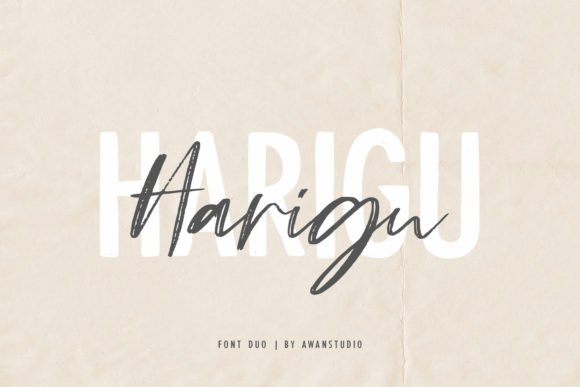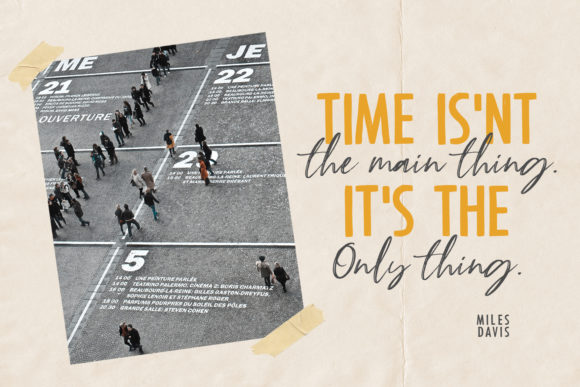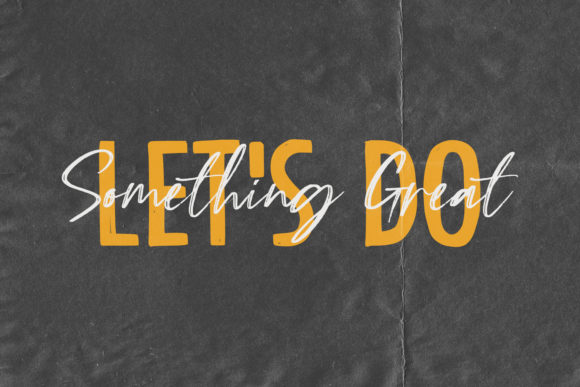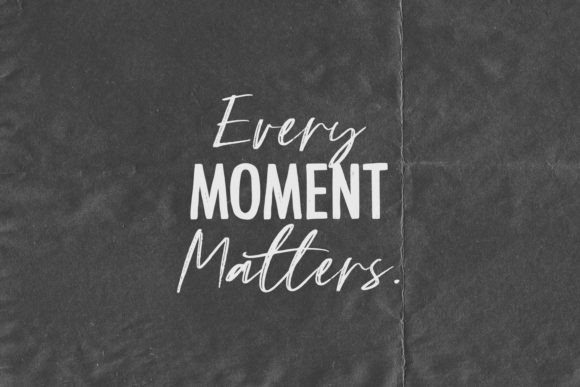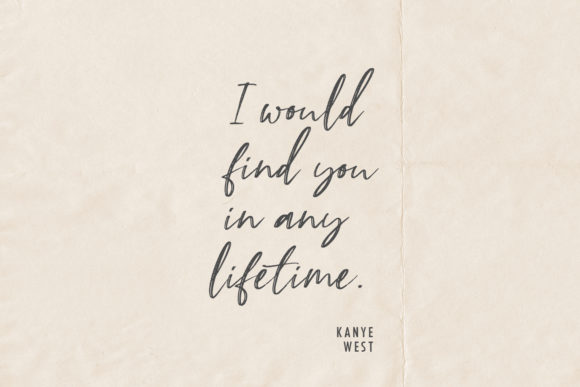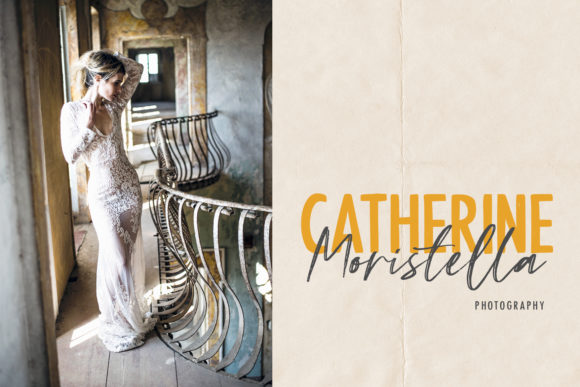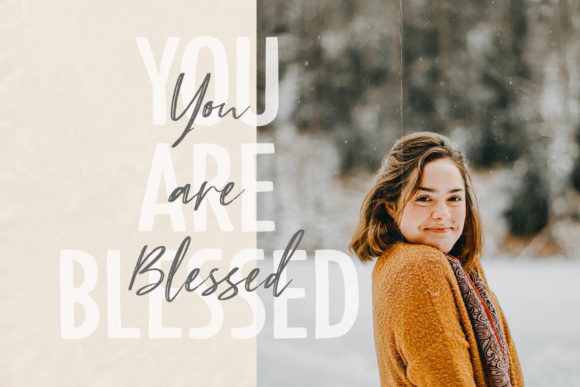
Unlock the Power of Unique Design with Harigu Duo Font
Have you ever stared at a blank canvas, eager to bring a fresh idea to life, only to be overwhelmed by the endless possibilities? That’s exactly what happened to me the last time I embarked on a design project. I needed a font that could capture the essence of my concept, something that would make it stand out from the crowd. Little did I know, my search would lead me to the stunning Harigu Duo Font.
This incredible font duo consists of a smart sans serif and an authentic script font, designed to work harmoniously together. The Harigu Duo Font is perfect for designers who crave a unique look and feel for their projects. By combining these two fonts, you can create one-of-a-kind designs that truly reflect your artistic vision.
Whether you’re a seasoned designer or just starting out, the Harigu Duo Font is an invaluable addition to your toolkit. Its versatility and expressive nature make it an ideal choice for a wide range of projects, from branding and advertising to editorial and digital design.
Key Features of Harigu Duo Font
- Font Family: Harigu Duo is a unique, dual-axis font that combines two distinct font styles in a single font family.
- Unique Characteristics: Harigu Duo features a distinctive, dual-axis design that allows for a wide range of creative applications, from body text to display headings.
Review of Harigu Duo Font
Overall, I found the Harigu Duo Font to be an interesting addition to the world of typography. Here are some of its strengths and weaknesses:
- Unique style and aesthetic: Harigu Duo Font has a distinctive, modern look that sets it apart from other fonts.
- High legibility: The font is clear and easy to read, even at smaller font sizes.
- Good for display text: Harigu Duo Font is well-suited for headings, titles, and other display text where a bold, eye-catching font is desired.
- Limited font families: The Harigu Duo Font is only available in two weights (Regular and Bold), which may limit its versatility.
- No italic or oblique options: If you need to use italic or oblique text, you may need to use a different font.
- Not suitable for body text: While the font is legible, it may be too bold and attention-grabbing for body text, which can make it difficult to read in large quantities.
The Harigu Duo Font is a solid choice for designers who want to add a modern, unique touch to their projects. While it may have some limitations, its strengths make it a valuable addition to any font collection.
The Harigu Duo Font is ideal for:
1. Creating elegant and sophisticated designs.
2. Adding a touch of luxury and sophistication to your branding.
3. Designing invitations, wedding stationery, and other special occasion materials.
Alternatives to Harigu Duo Font
Lobster is a popular script font known for its elegant and cursive style. It’s ideal for use in headings, titles, and invitations where a touch of sophistication is desired. Lobster is more cursive than Harigu Duo Font, making it better suited for longer text passages and titles.
Comparison to Harigu Duo Font: Lobster is more elaborate and has a stronger emphasis on cursive style, whereas Harigu Duo Font has a more modern and minimalist feel.
Great Vibes is a modern script font that’s perfect for use in digital design, such as website headers, social media, and advertising. It’s more playful and energetic than Harigu Duo Font, making it suitable for projects that require a lively and approachable tone.
Comparison to Harigu Duo Font: Great Vibes is more dynamic and has a more fluid feel, whereas Harigu Duo Font is more static and has a cleaner aesthetic.
Yes, Harigu Duo is carefully optimized for digital use, including high-resolution displays and various screen sizes. This ensures that the font renders smoothly and consistently across different devices and platforms.
Q: Are the glyphs in Harigu Duo language-neutral?
Yes, the Harigu Duo font family includes a wide range of language-neutral glyphs, making it suitable for use in multilingual designs and applications. However, please note that some languages may require additional fonts or modifications for optimal support.